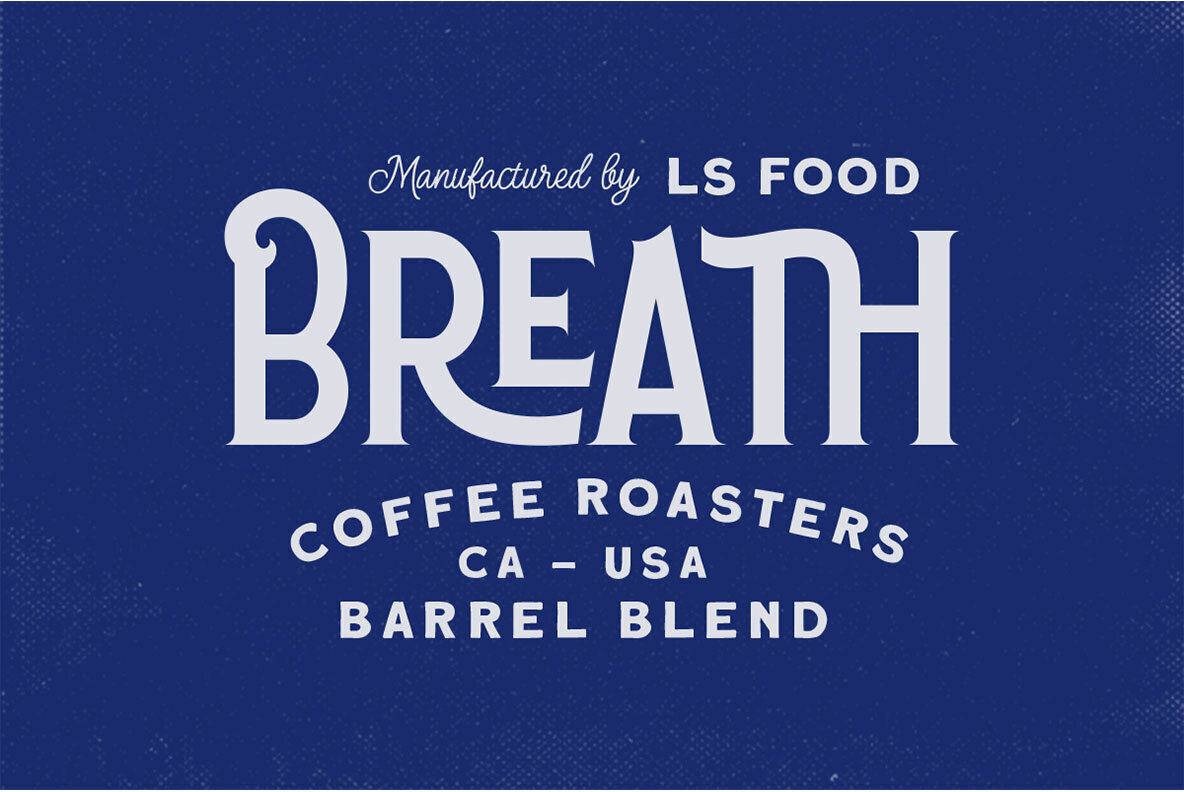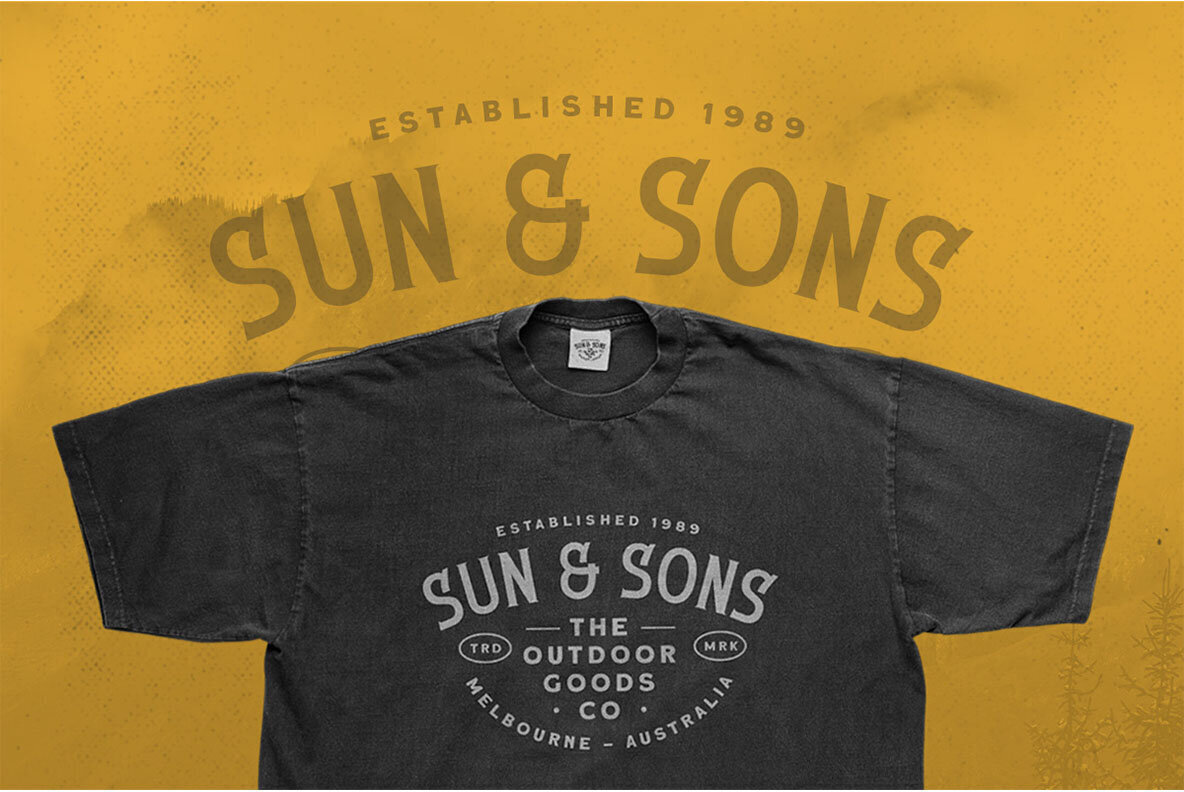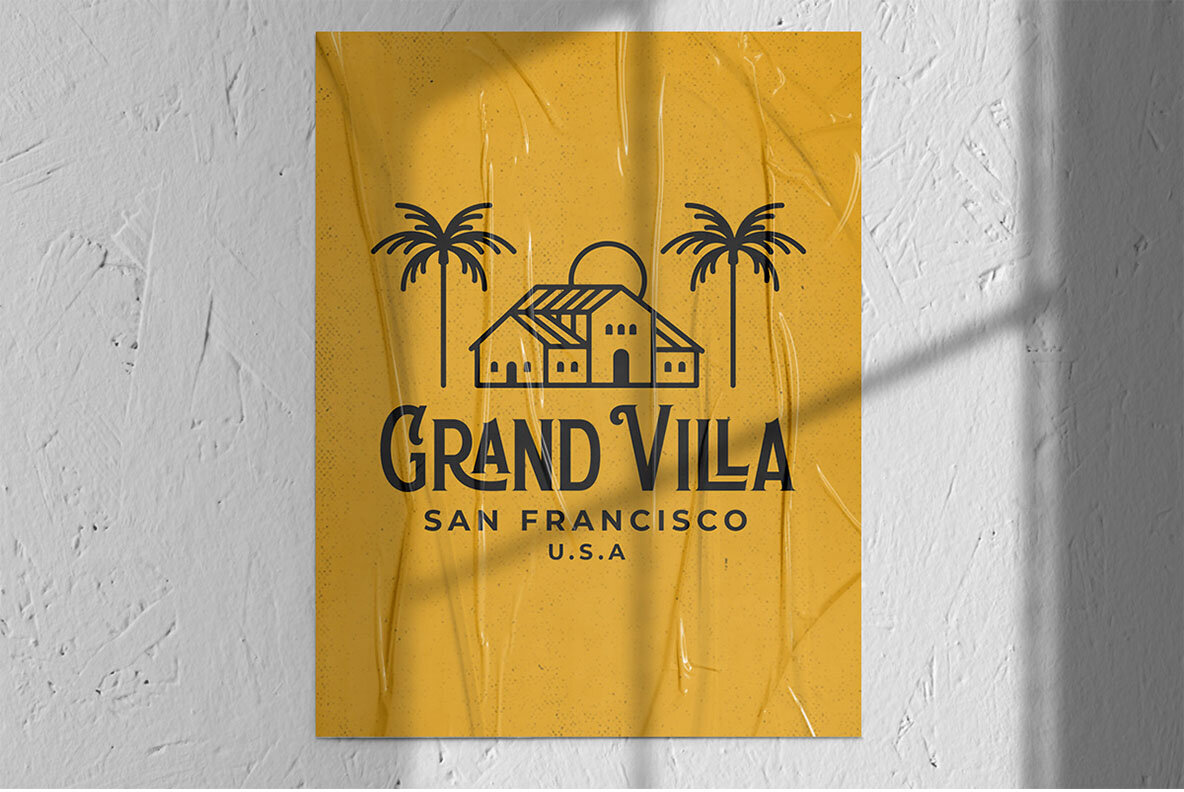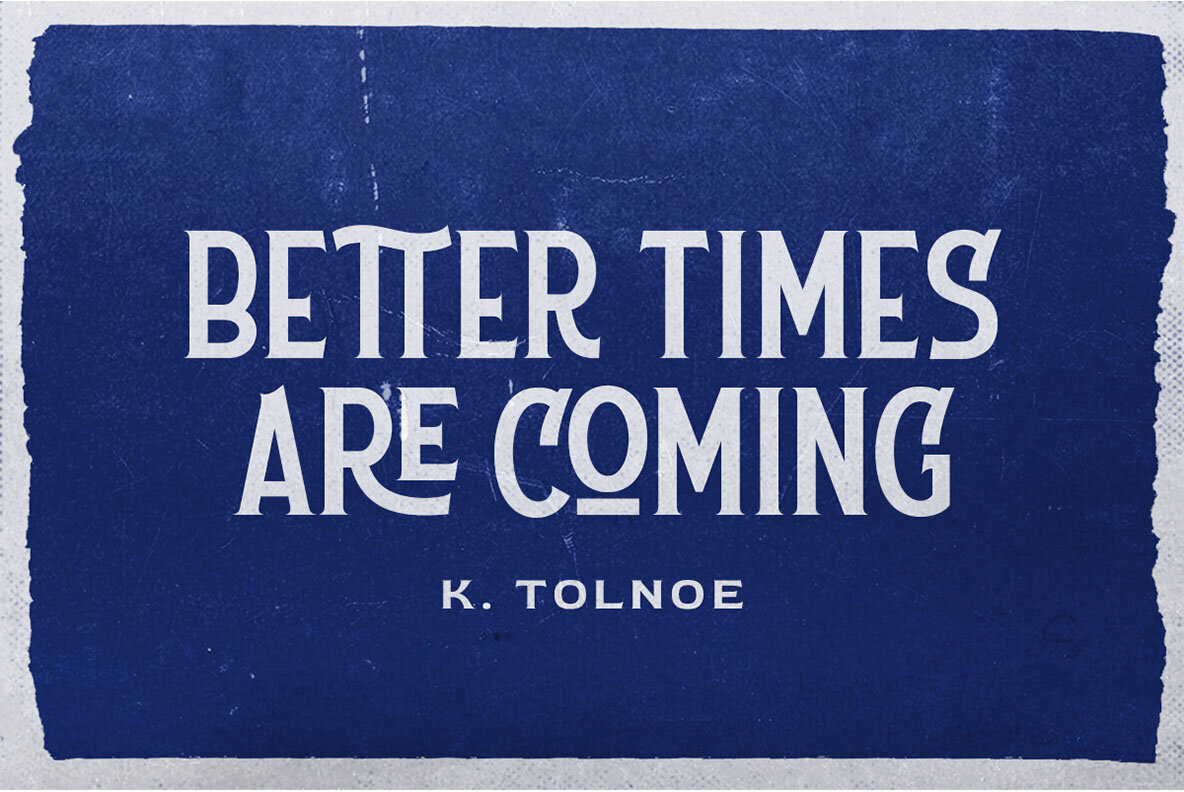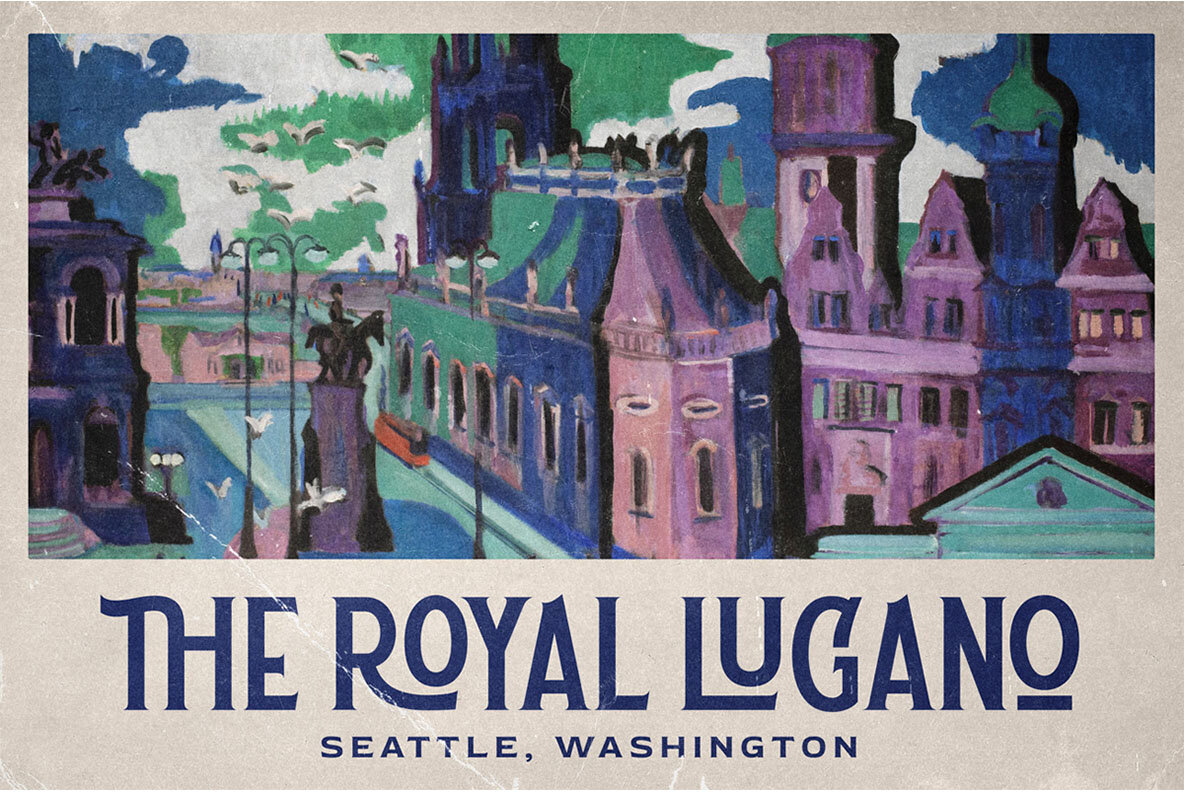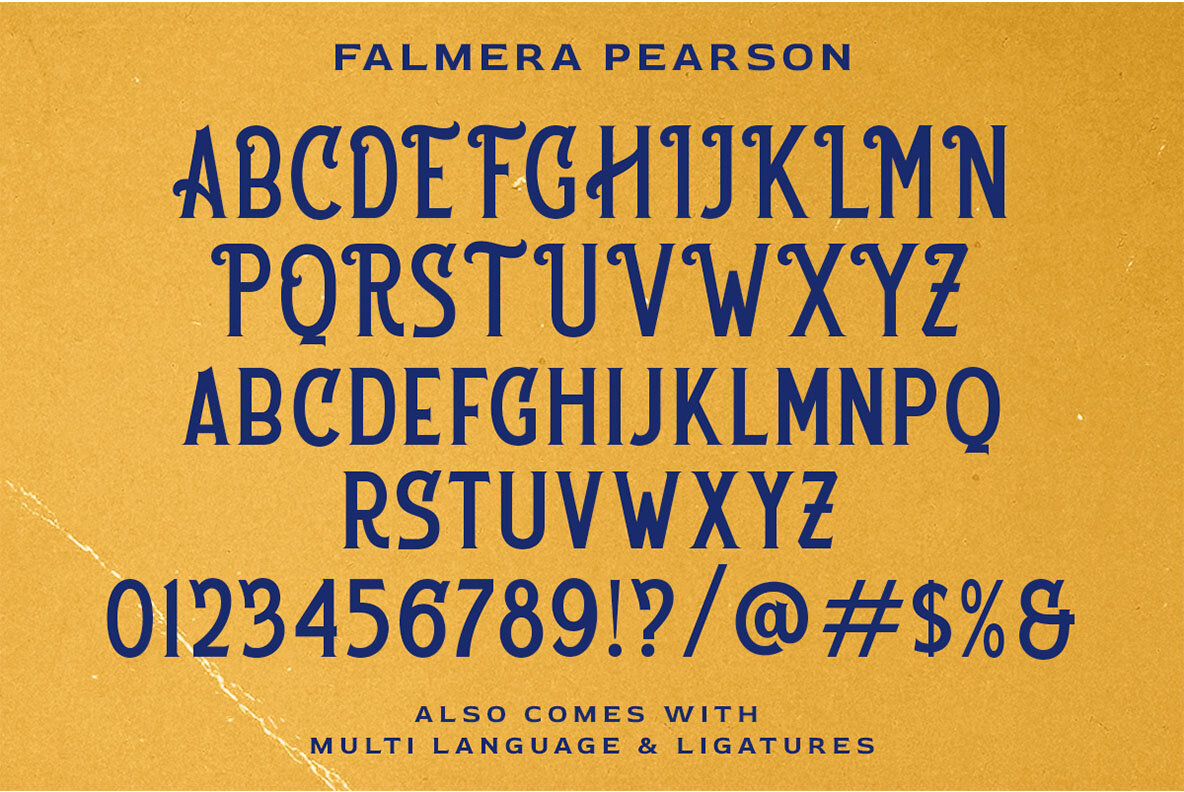
Falmera Pearson Font
Falmera Pearson offers a captivating blend of old-school charm and contemporary flair, drawing inspiration from vintage signage and art. It is ideal for headlines, logotypes, apparel, and invitations, providing a distinct look for branding and packaging. Whether embracing a vintage or modern aesthetic, this typeface adapts effortlessly to your design needs. Features:Falmera Pearson: Vintage-Inspired Typeface